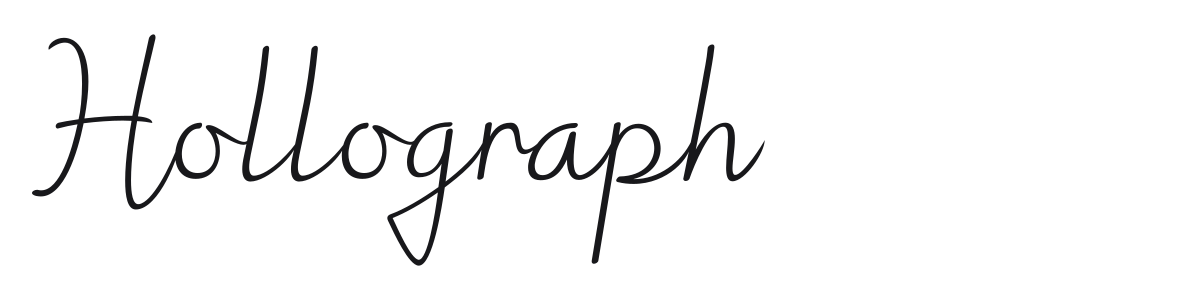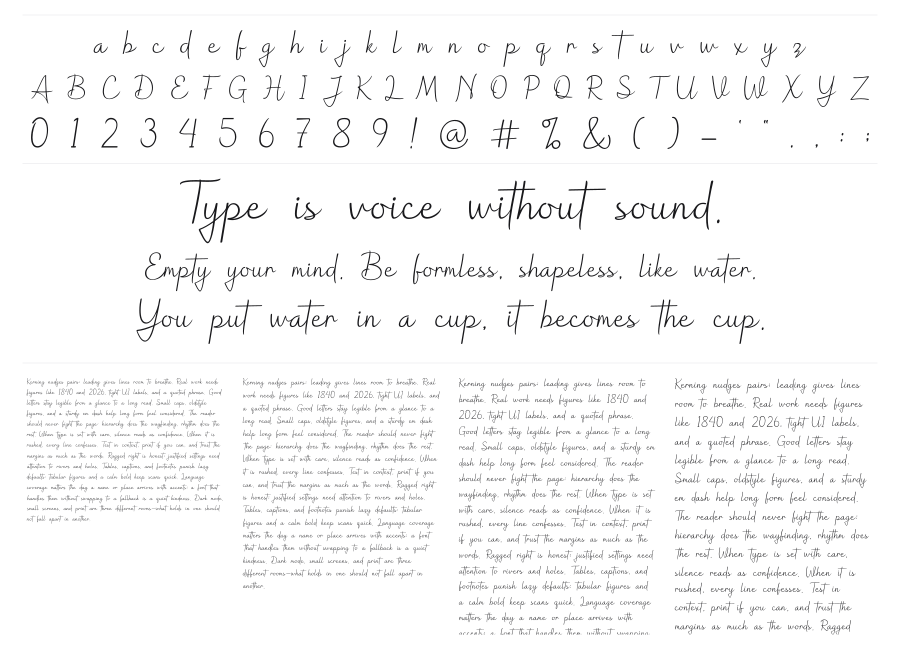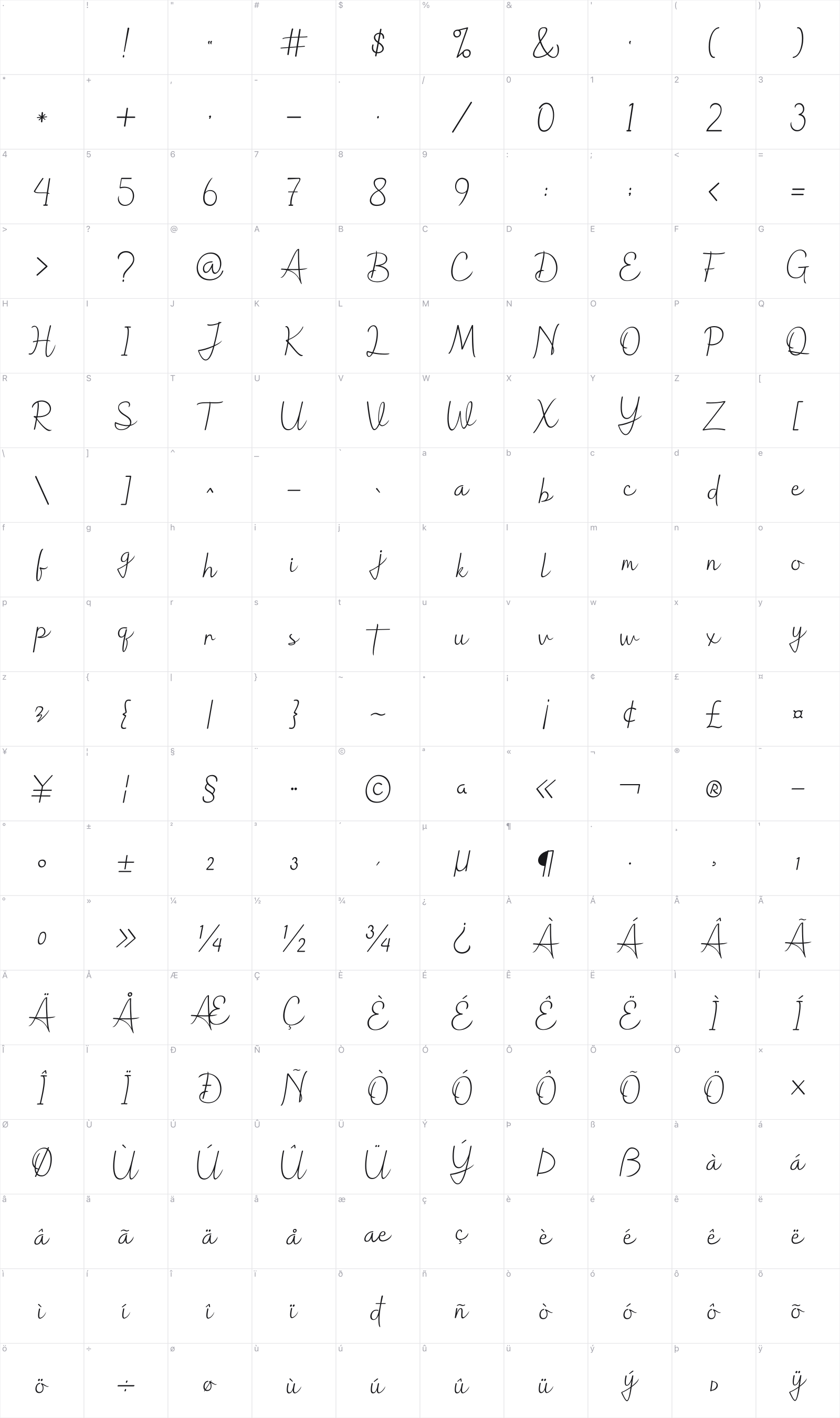
Hollograph
Hollograph is a flowing cursive script with a light monoline stroke and long, looping connectors that give it a natural handwritten feel. The loose, casual construction sits somewhere between a personal signature and a polished display face. It works well at large sizes for logos, packaging, and editorial headers.